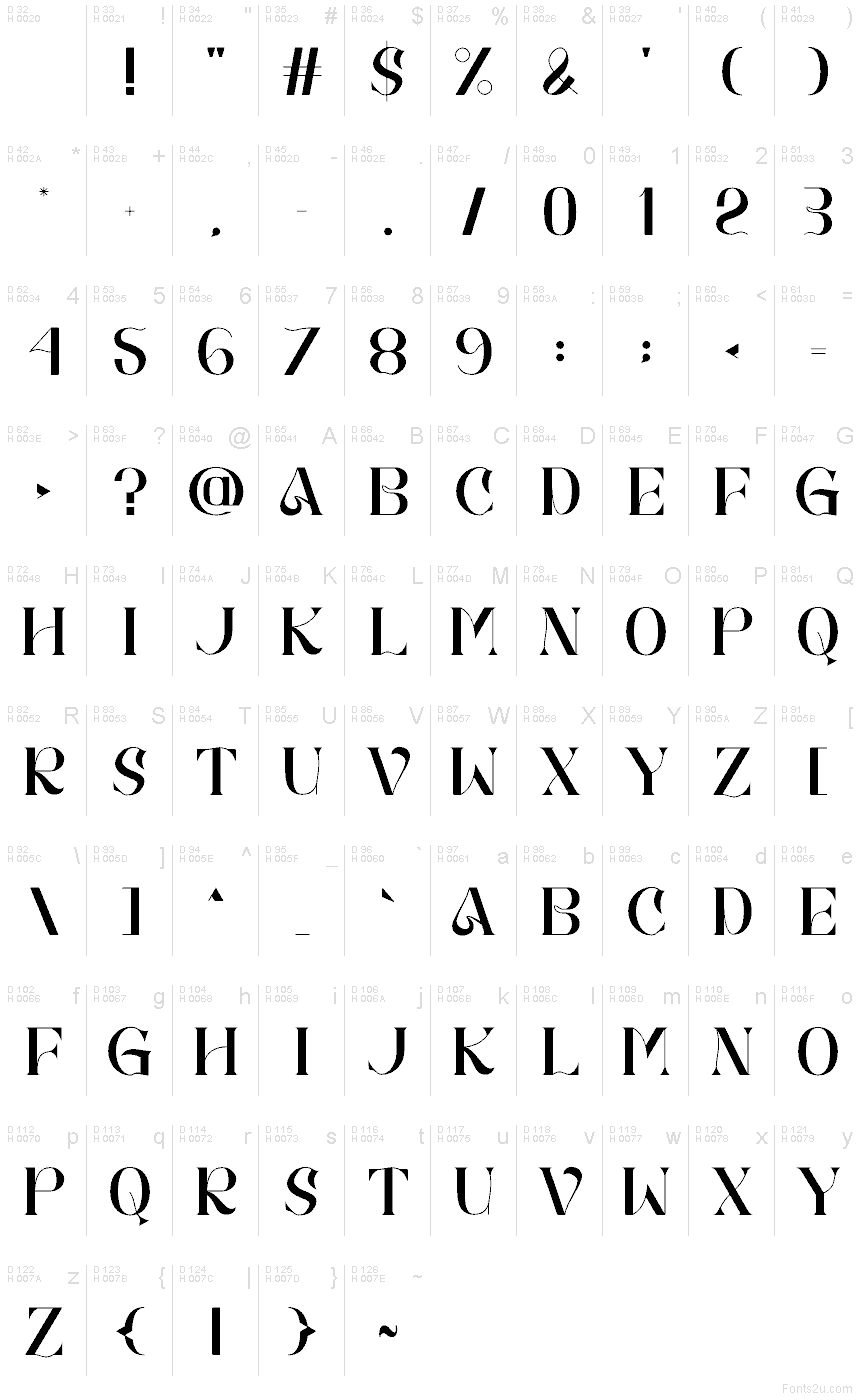
Brays font by suhadidesign is a free retro serif font that turns headlines into sculpted statements. Its letterforms swing from inky, carved wedges to slender curves, with dramatic cuts that feel both vintage and freshly polished. The rhythm is bold and theatrical-think poster-ready strokes that catch light like lacquered signage.
Using Brays, you get instant character for posters, album art, boutique branding, liquor labels, magazine covers, and event titles. The spacing holds together at large sizes while those ribbon-like curves add swagger in short words and monograms. This free font pairs beautifully with a clean grotesque or geometric sans for body copy; add a touch of tracking to let the forms breathe.